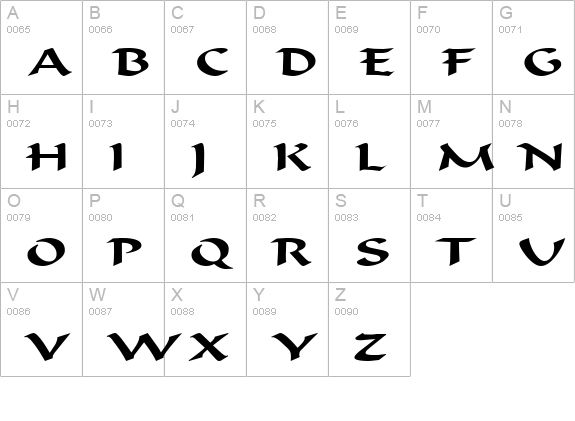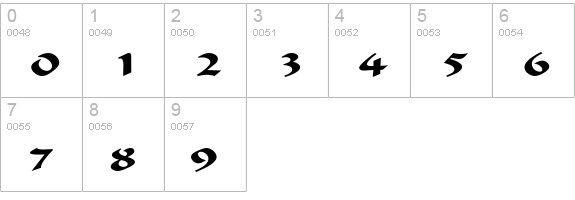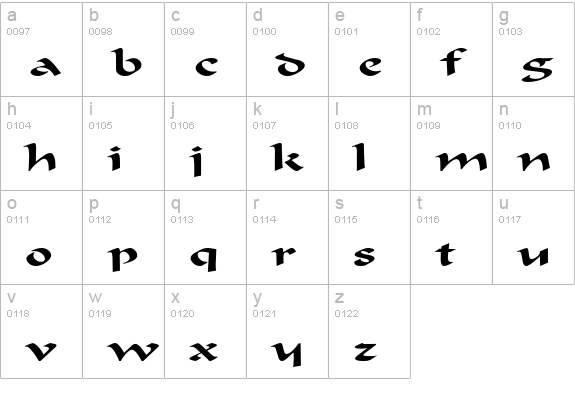
Flat Brush Extended Normal Font Details
Flat Brush Extended Normal is the standard, neutral, extended-width variant in the Flat typeface family \xE2\x80\x94 well suited to general body text, paragraphs, and standard typographic work.
Flat Brush Extended Normal font is a modern and stylish typeface that exudes a sleek and sophisticated vibe. With its clean lines and unique brush strokes, this font is perfect for adding a contemporary touch to any design project. Whether you're creating posters, logos, or branding materials, Flat Brush Extended Normal font is sure to make a statement. And the best part? This font is completely free to download at FontsMarket.com! Don't miss out on the opportunity to enhance your designs with this versatile and eye-catching typeface. Download Flat Brush Extended Normal font today and take your creations to the next level.